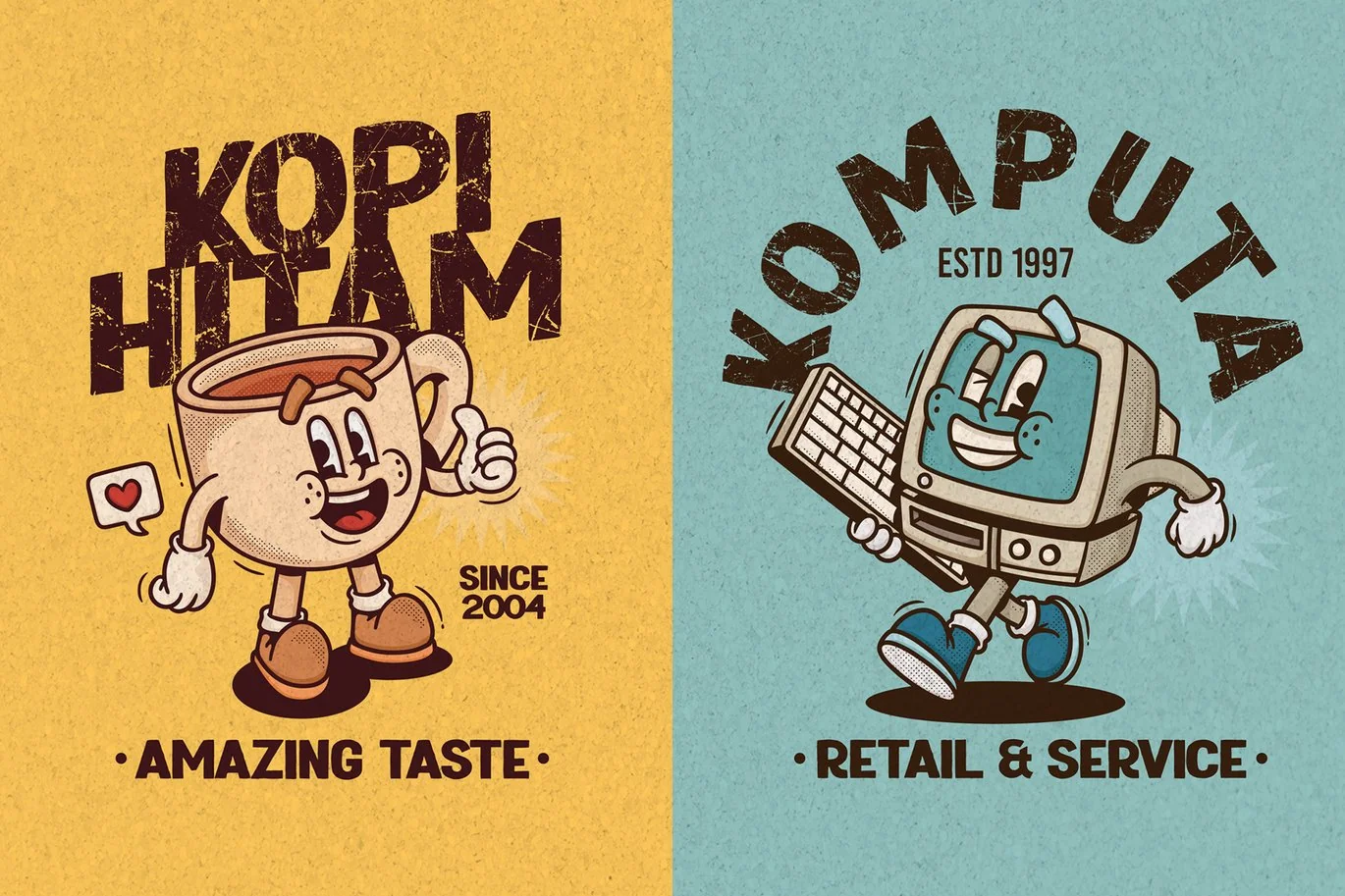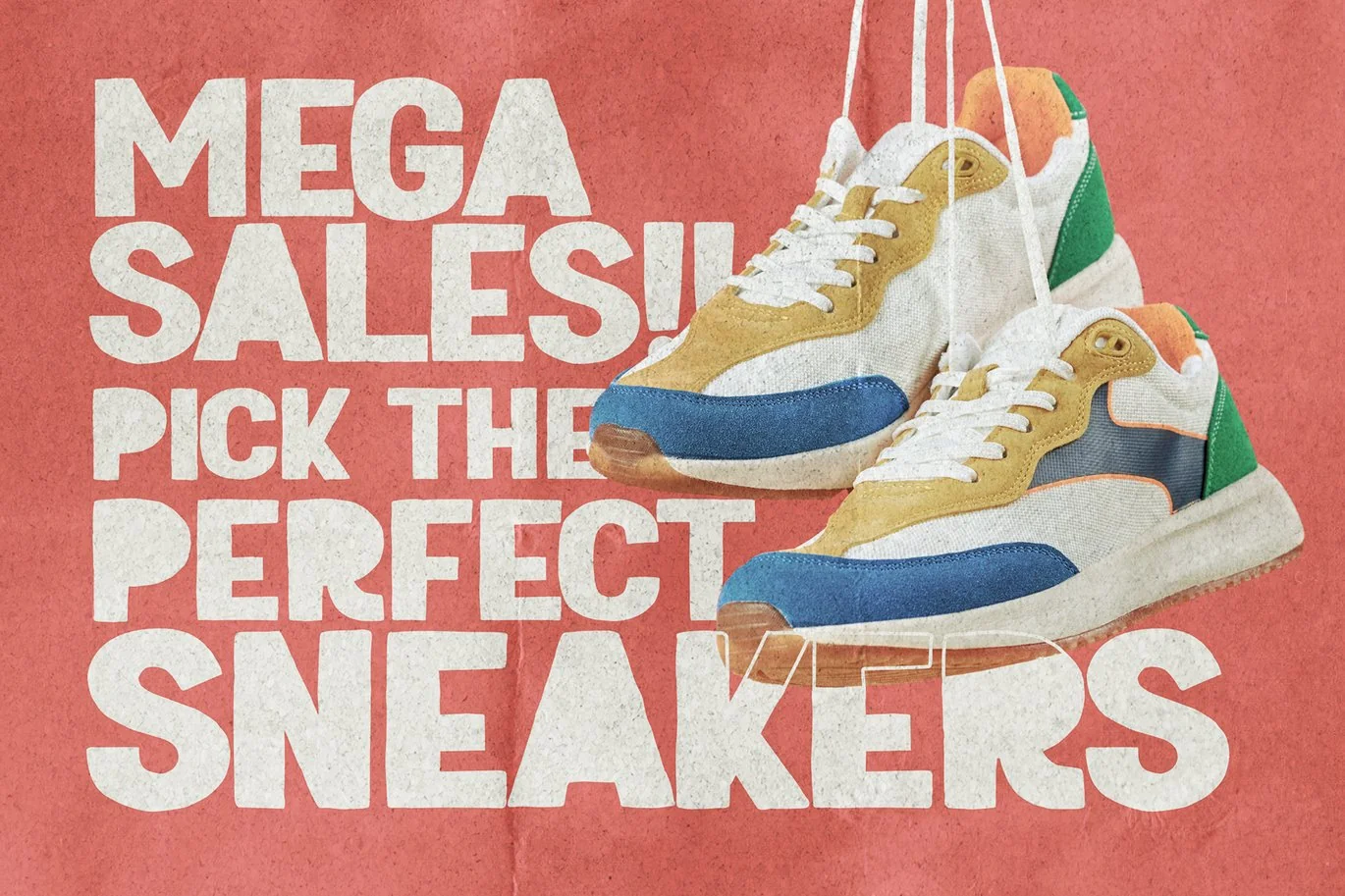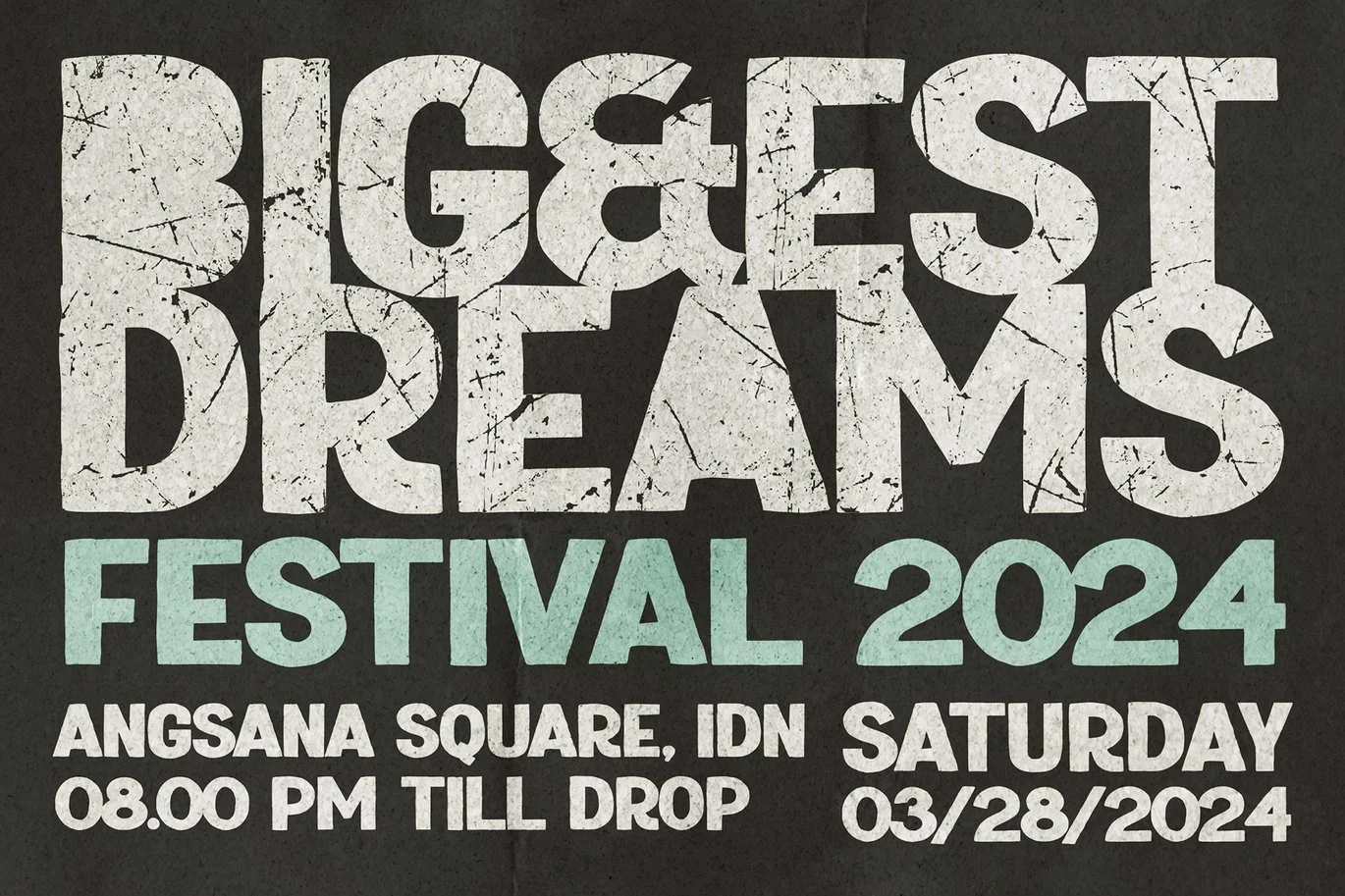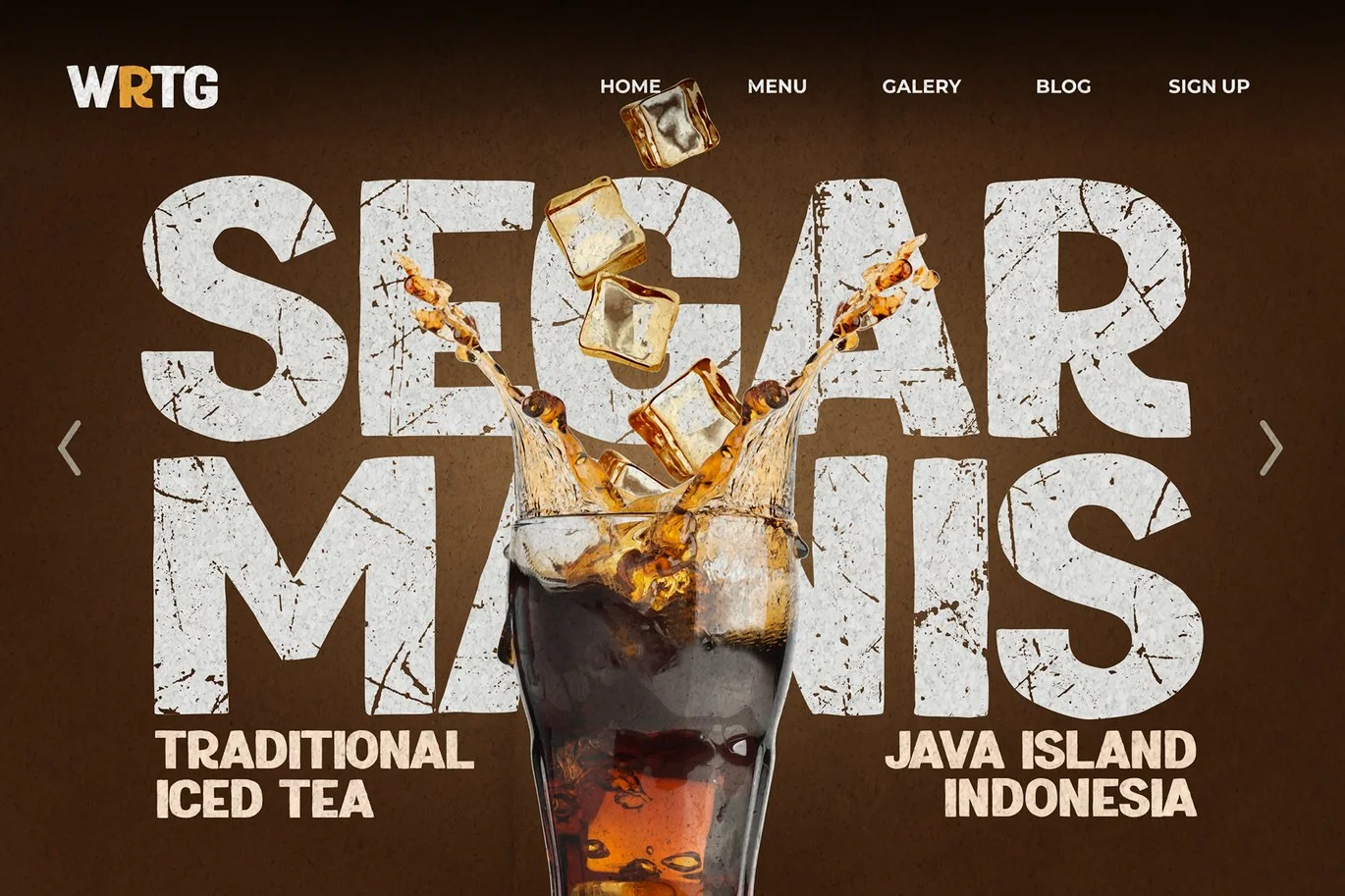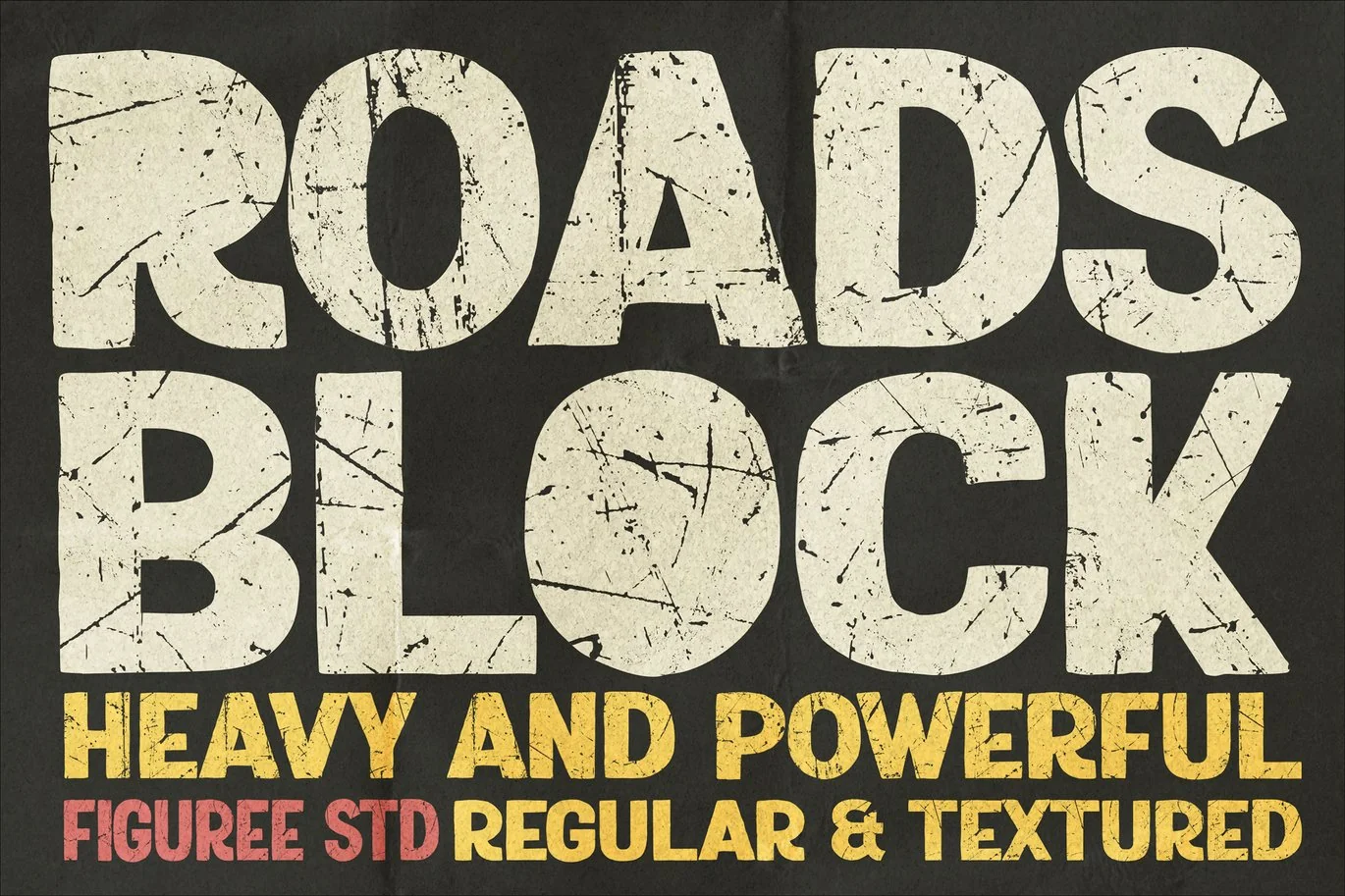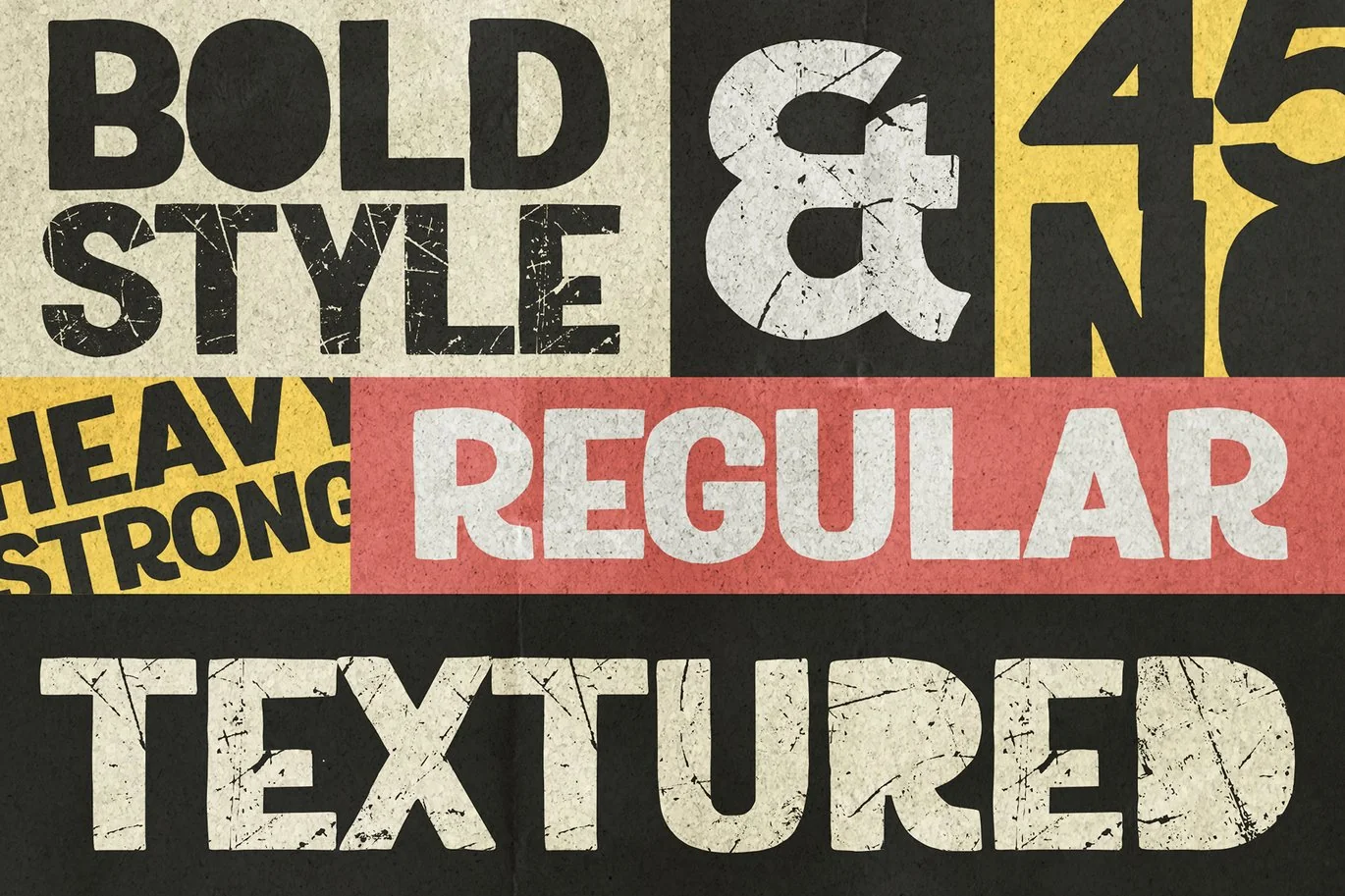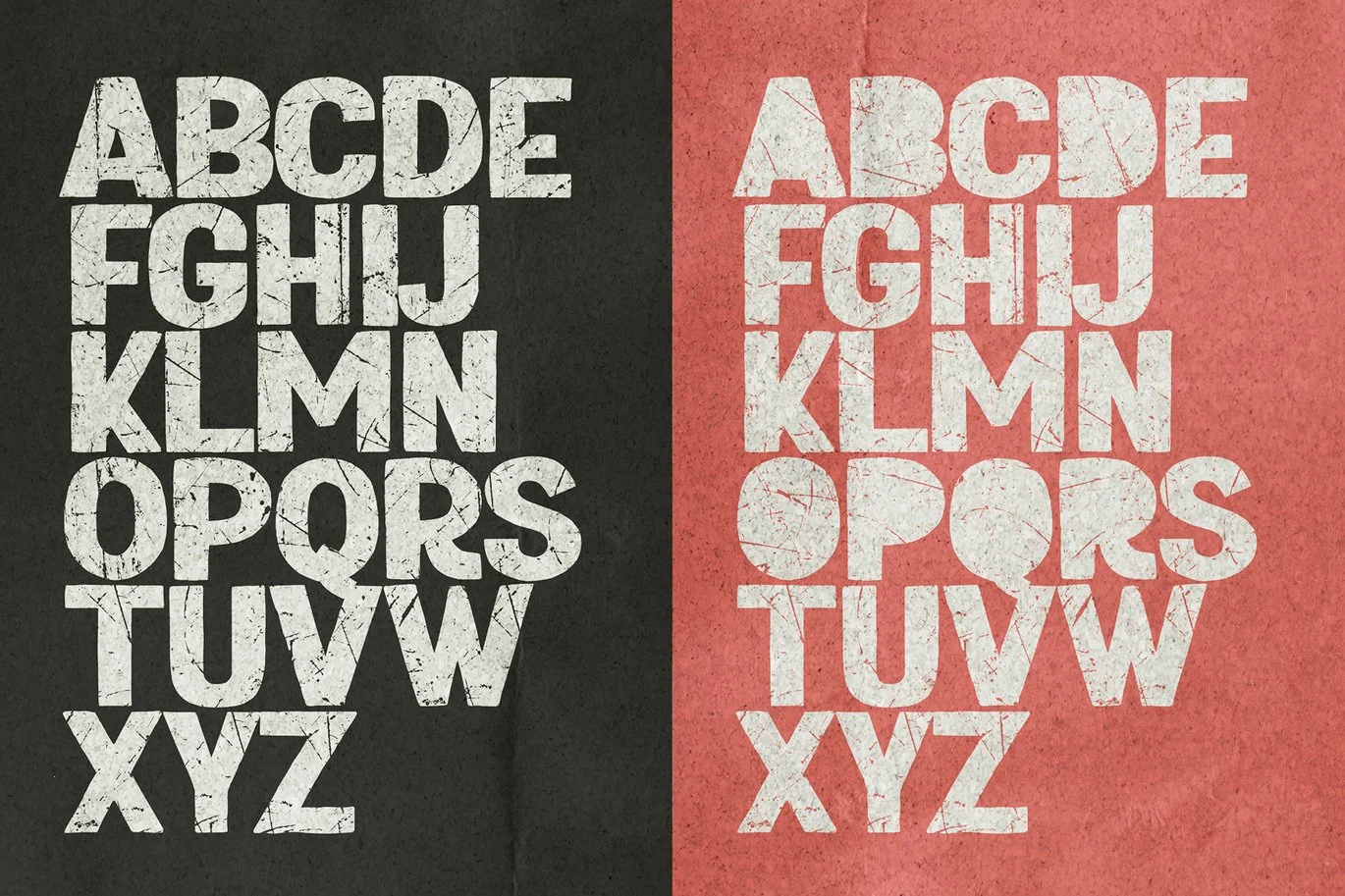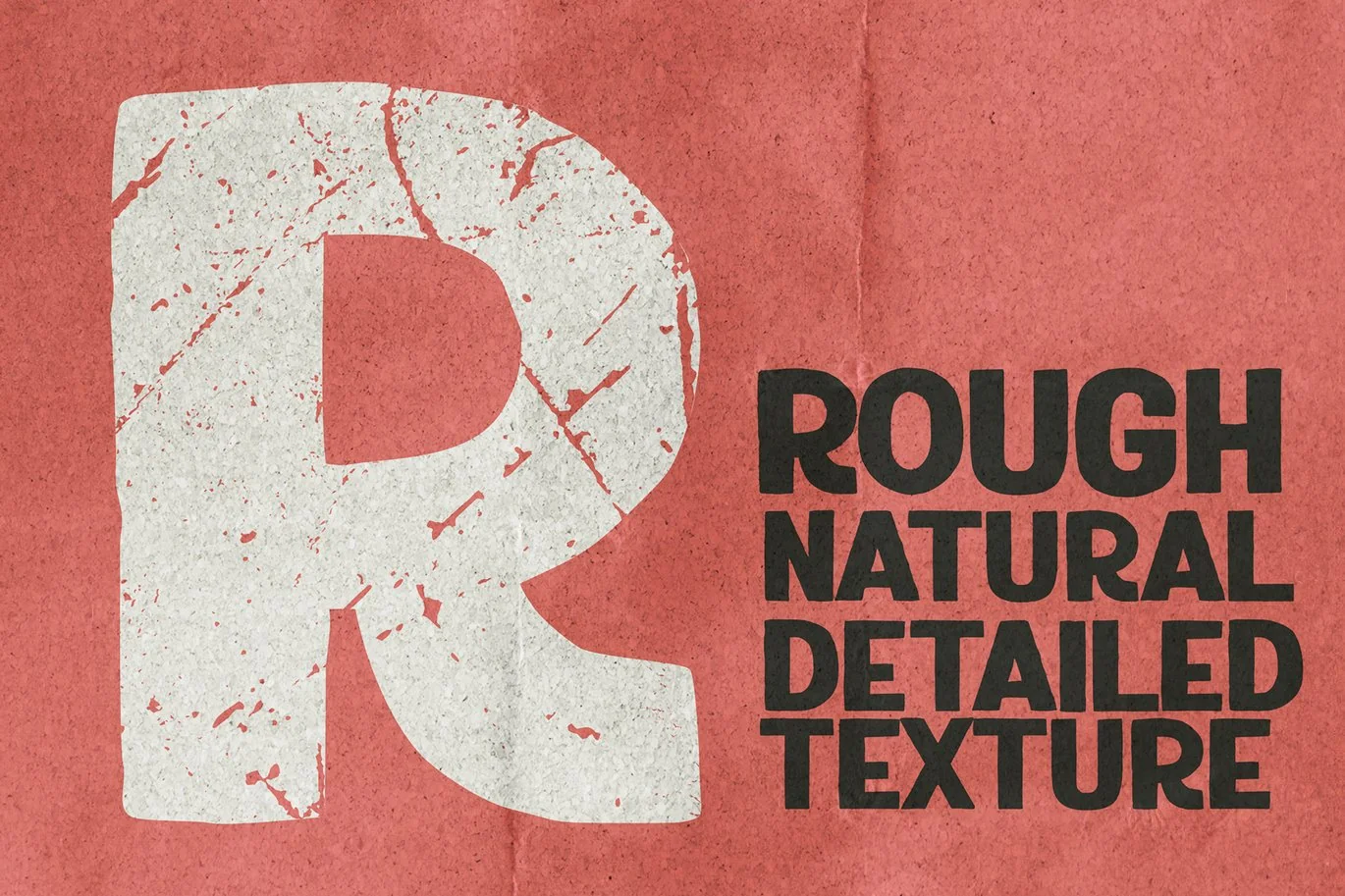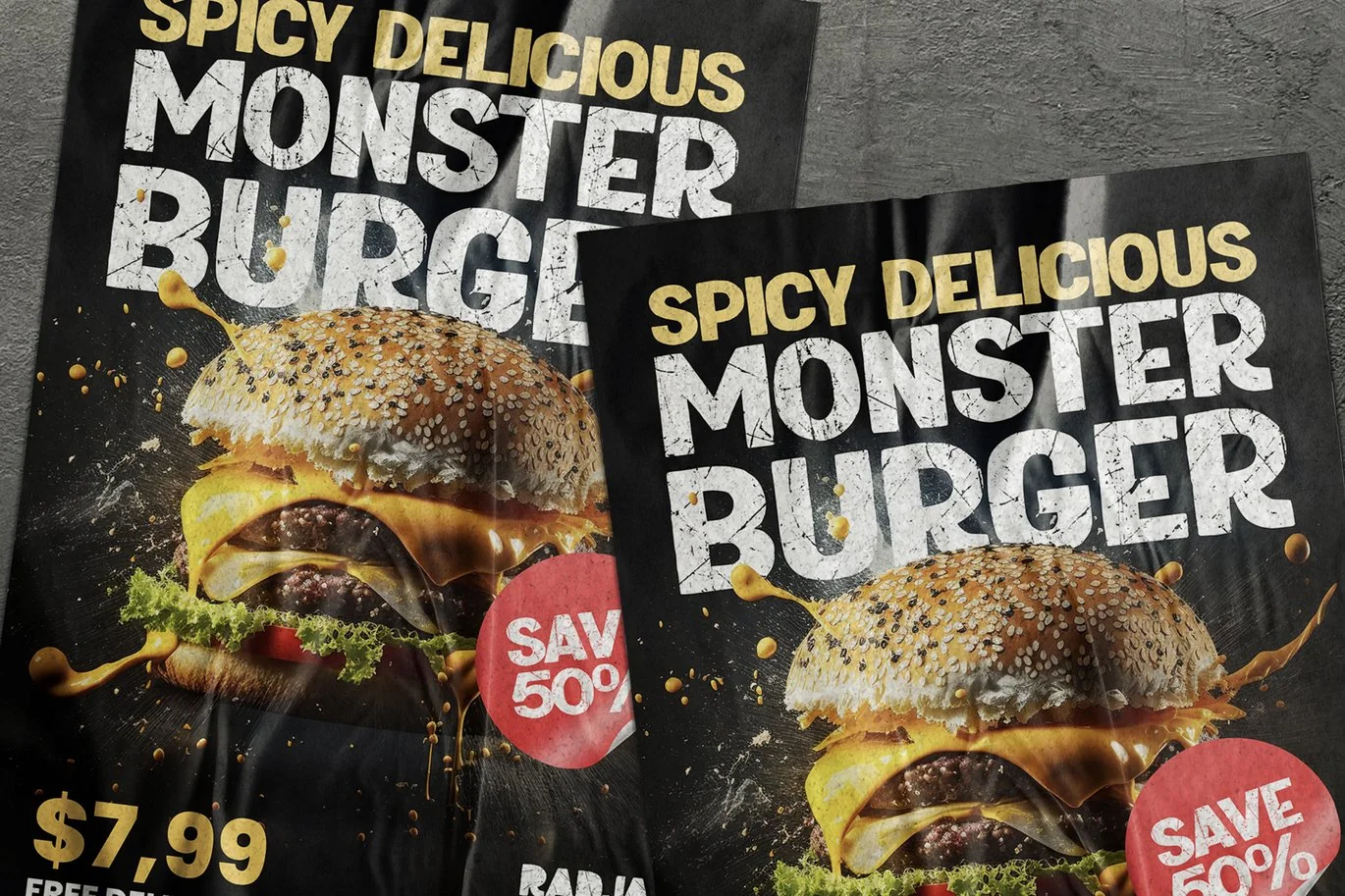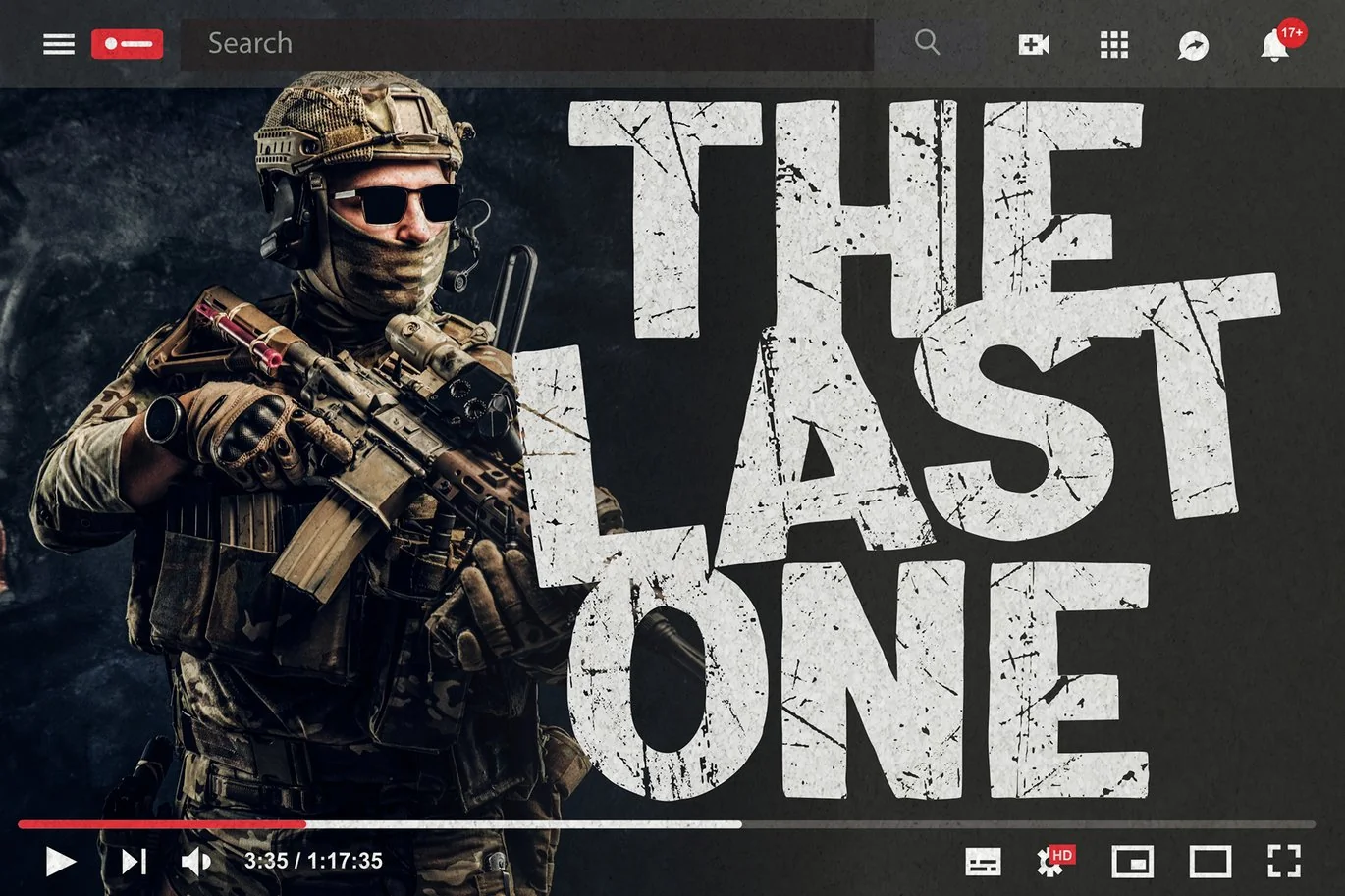
Roads Block – Heavy and Powerful Font
Roads Block, an embodiment of sheer strength and dominance, stands as a heavy and powerful font that leaves an indelible mark. With its robust lettering, available in both Regular and Textured styles, this font exudes unparalleled authority and impact. The Regular style commands attention with its bold strokes, while the Textured variant adds a gritty, industrial edge, reminiscent of asphalt underfoot.
Each character of Roads Block is a testament to resilience, evoking the untamed power of construction and urban landscapes. This font is more than a typeface; it’s an unyielding force that transforms words into structures, making every design a road map to strength and authority. In the realm of typography, Roads Block is the cornerstone of bold expression, paving the way for impactful and commanding visual narratives.